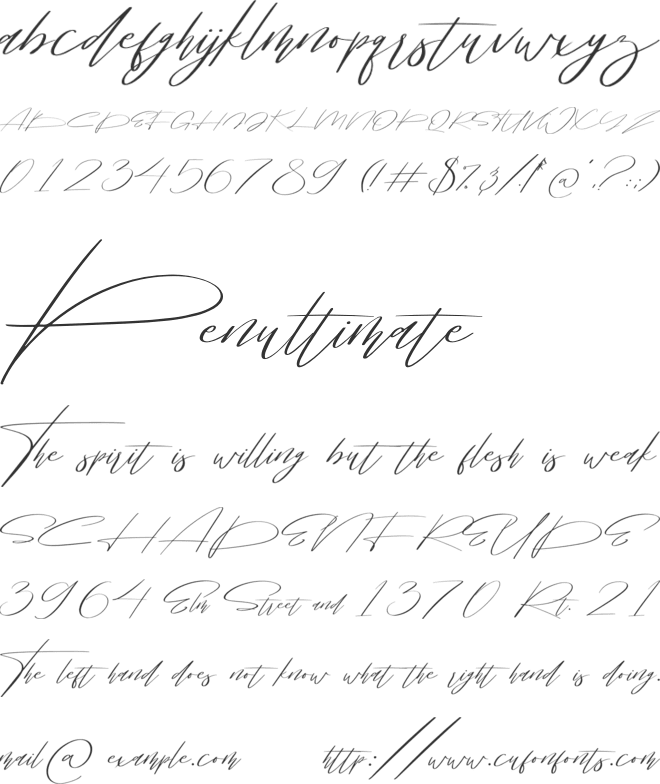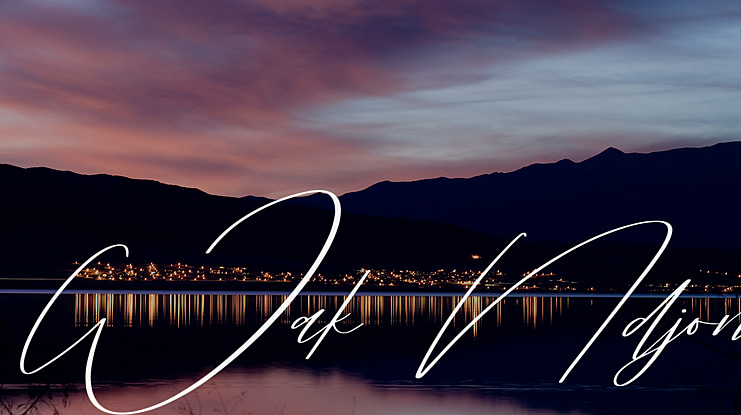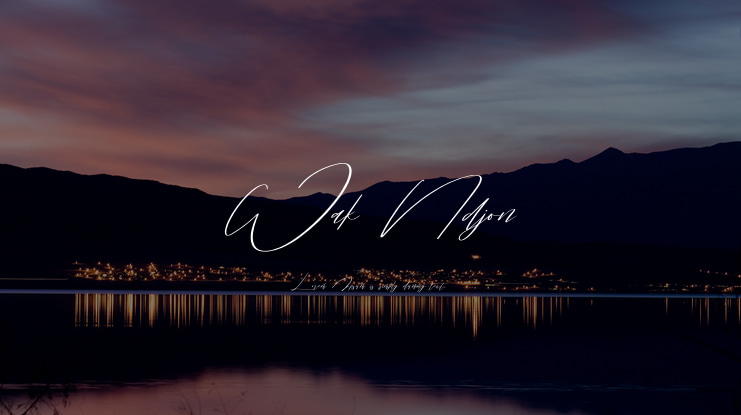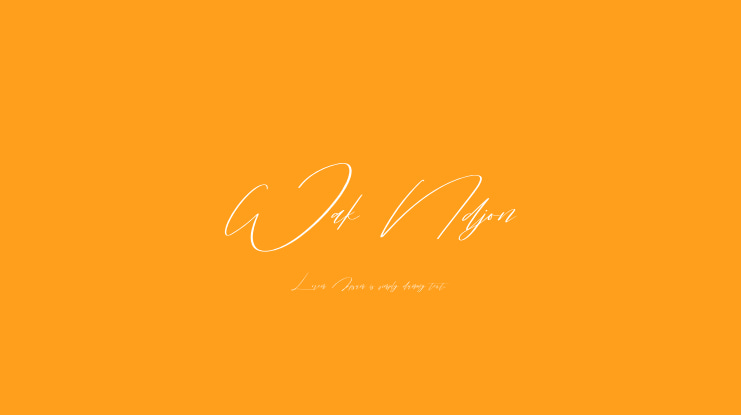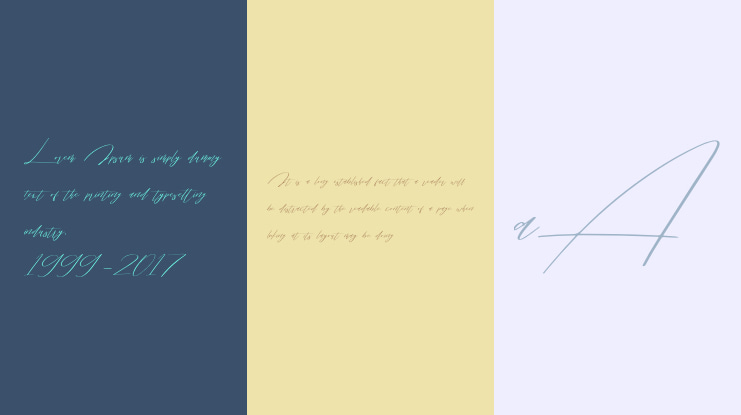
Wak Ndjon is modern chick calligraphy font that is made by Ferry Ardana Putra. This font made by natural pen which inspired by natural writing and random scratches. Wak Ndjon is modern calligraphy typeface which has a luxury feels with additional swashes, alternates and ornaments. Combined that precious combos to make your best natural-signature feel on your glamour project!
Wak Ndjon features:
A full set of upper & lowercase characters
Numbers & punctuation
Ligatures
Swashes
Ornaments